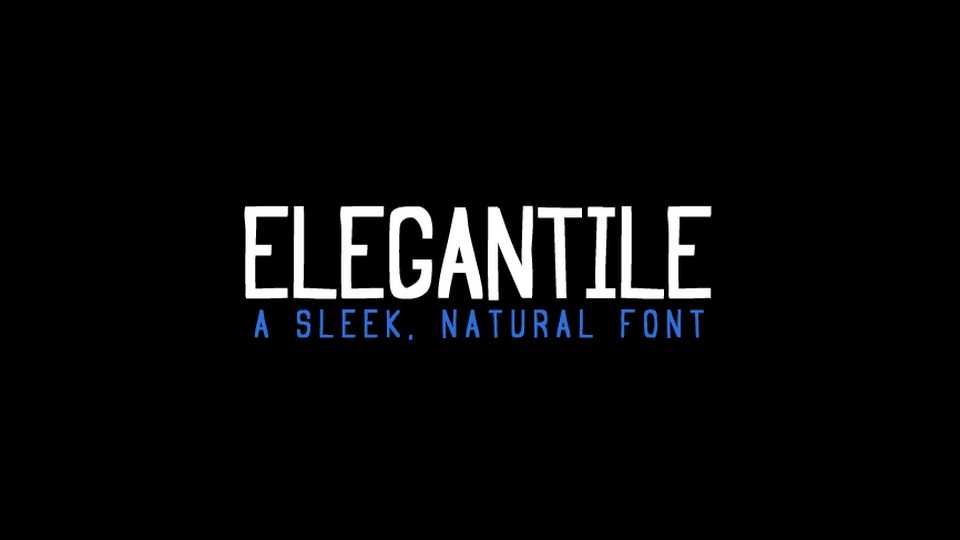
Download Elegantile font, a sleek, natural typeface with an organic handmade look. Elegantile is perfect for book designs, games, posters, cards and crafts.
Designer: Doggybag